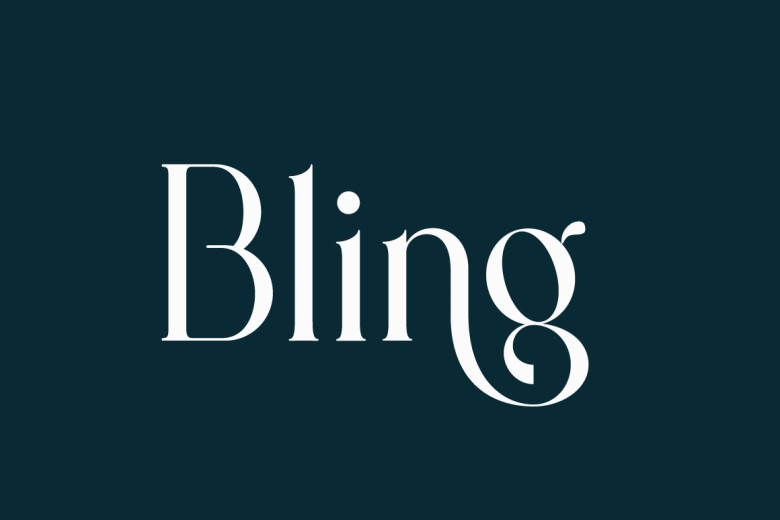
Bling Font
Bling is a luxurious and elegantly stylish serif font and which looks stunning in design projects. It’s perfect for logos & branding, invitation designs, greeting cards, quotes, posters, mugs, business cards, packaging, t-shirts, wedding stationery, and much more! Moreover, Bling is PUA encoded and helps you to work with all its swashes and glyphs easily.
Bling Serif Font